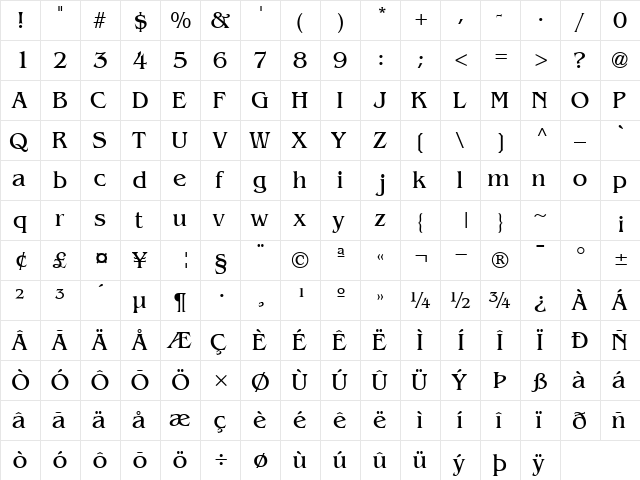
ExpressDecoSSK Regular
Design Context for ExpressDecoSSK Typeface
ExpressDecoSSK offers clean, dependable letterforms without strong stylistic allegiance, making it a practical choice for designers who need flexibility.